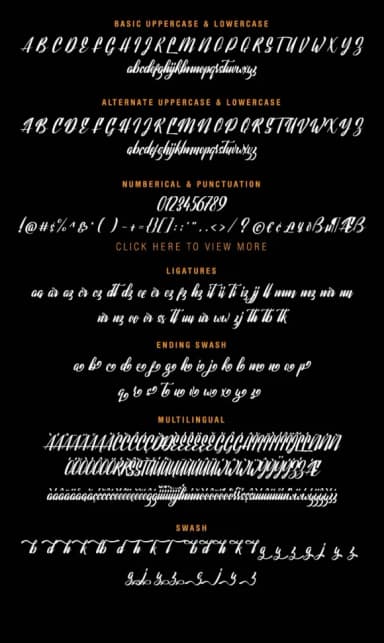
Lavalette by semuthitam is a painterly script that authentically captures the flowing, expressive character of hand-lettered typography. With organic curves and distinctive letterforms, this typeface brings genuine warmth to compositions that demand visual presence and personality. The brush-like quality creates an artistic foundation for projects where emotion and elegance intersect, while maintaining excellent clarity and readability even at larger display sizes.
This versatile script excels at bringing personalized artistry to wedding invitation suites, luxury stationery sets, calligraphy-inspired greeting cards, and custom event programs. Whether developing distinctive branding for a boutique business, designing artistic packaging labels, or creating hand-lettered signage, Lavalette provides an authentic handwritten aesthetic that resonates deeply with audiences seeking genuine craftsmanship. The balanced letterforms ensure consistent readability without sacrificing the artistic expression that makes hand-lettered typography so compelling.
For designers wanting to infuse their work with an authentic, professionally-rendered hand-lettered aesthetic, Lavalette Font delivers both substance and character to your typographic choices. Its flowing nature makes it ideal for focal-point typography where your messaging needs to feel both visually commanding and genuinely crafted. Explore Lavalette Font on Creative Fabrica to add this elegant script to your design collection.
Lavalette Font is a script font that shines as a display or heading face. Pair it with a clean sans-serif or serif font for body text β the contrast creates a clear hierarchy while the two styles stay balanced and easy to read.
Lavalette Font
by semuthitam